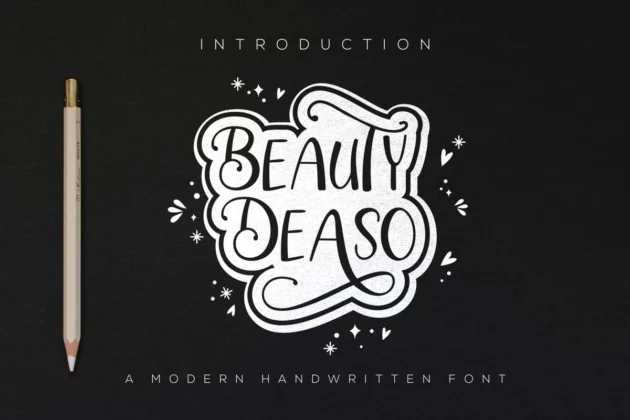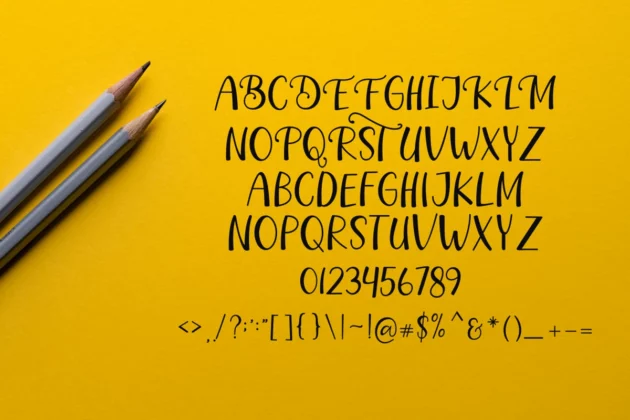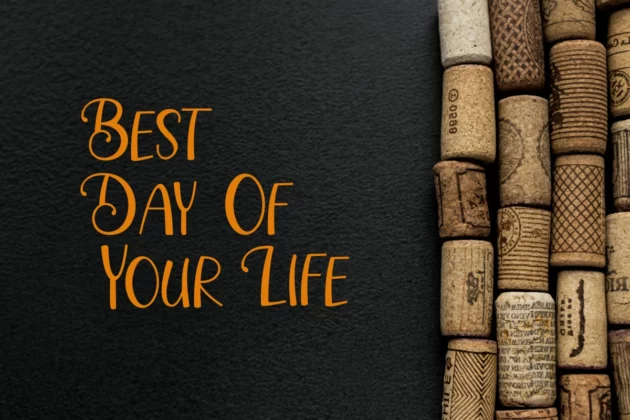
Beauty Deaso
About Beauty Deaso Font
Introducing our new productBeauty Deaso Font- Modern Font
Beauty Deaso Font- Modern Font is a bold and authentic display font. The font is suitable for any branding project like logo, t-shirt printing, esport, and many more. outstanding in a wide range of contexts.